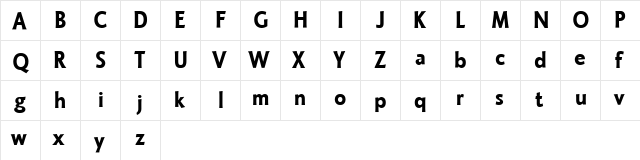
OctoneBETA Regular
Design Context for OctoneBETA Typeface
OctoneBETA takes a measured approach to typography — its balanced proportions and neutral character make it a reliable workhorse for both digital and print work.
Pro Tip: Use OctoneBETA in both headline and body roles to test its range before committing to a single application.